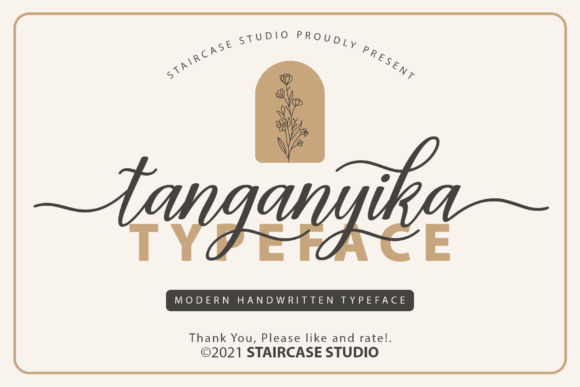
Unleash the breathtaking artistry of Tanganyika Font, a captivating script typeface crafted to ignite your creativity and elevate your designs to new heights. Its gracefully flowing lines and impeccable balance evoke the elegance of handwritten artistry, inviting you to embrace the art of self-expression.
Tanganyika Font stands as the epitome of versatility, effortlessly adapting to a myriad of design applications. Whether you seek to create captivating logos that command attention, establish a distinctive brand identity, or add a touch of allure to inspiring quotes, this font will become your trusted companion. Its PUA encoding unlocks a treasure trove of glyphs and swashes, empowering you to effortlessly access the full spectrum of its typographic artistry.
Step into a world where words dance with exquisite flair, where every letter becomes a brushstroke that paints emotions on the canvas of your designs. Tanganyika Font is not merely a font; it is an invitation to embark on a creative odyssey, where your imagination takes flight and your designs soar to unprecedented heights.
Let Tanganyika Font ignite the spark within you, inspiring you to craft designs that resonate with grace, charm, and timeless appeal. From captivating social media posts to unforgettable branding materials, this font will transform your creative vision into a tangible masterpiece.
Embrace the allure of Tanganyika Font today, and let your designs blossom with the captivating power of handwritten artistry.